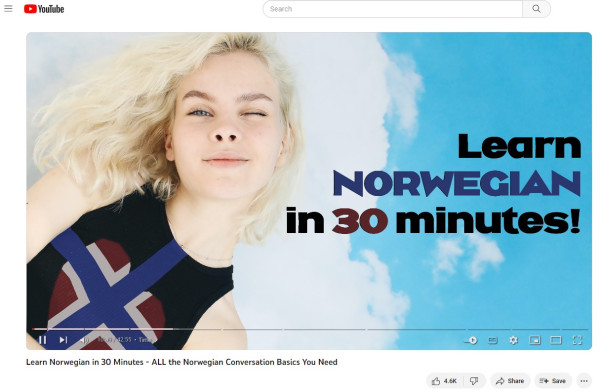
Minne Petat Font
Minne Petat Font, is a sans serif  stunning when combined or separately. This sans serif font style is legible and stunningly designed.
I needed a BIG FAT letter to make a vertical sign. Made my own as usual and share it for free as usual. ‘Minne Petat’ is dialect for shithead in the east of the Netherlands by the way.